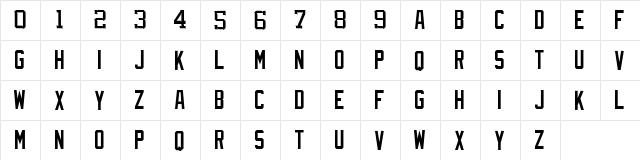
MLB Nationals Reverse Bevel Regular Font Preview
MLB Nationals Reverse Bevel Regular
MLB Nationals Reverse Bevel Regular Font Details
Design Context for MLB Nationals Reverse Bevel Typeface
MLB Nationals Reverse Bevel is a composed and adaptable typeface that performs quietly and consistently across a wide range of design contexts.